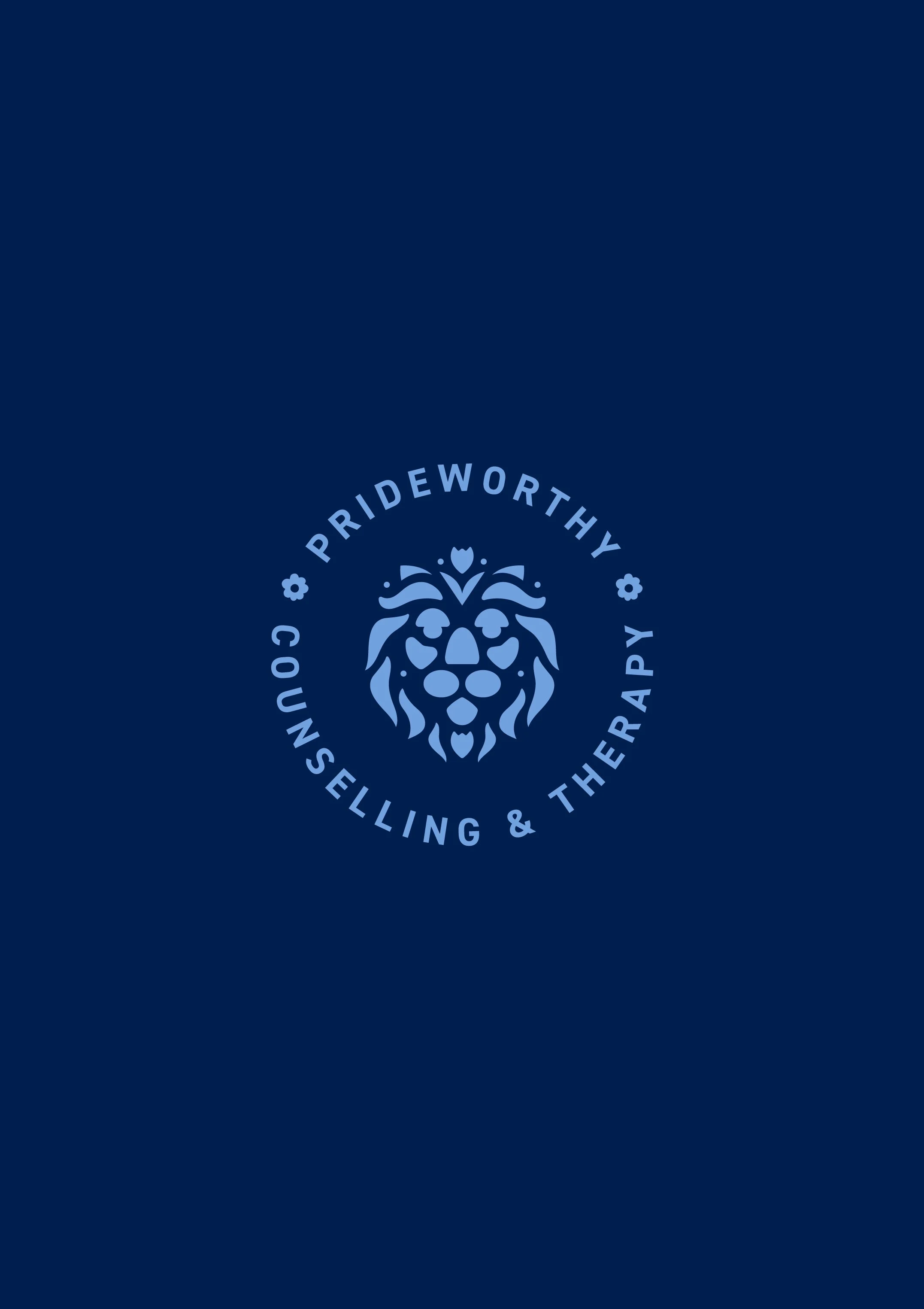
Prideworthy
Prideworthy is a people-centered therapeutic counseling service in Brunswick, AU with a focus on LGBTQIA+ individuals.
Being a member of this community really afforded me the opportunity to channel my love and gratitude for the community that has done the same for me.
I was tasked with designing a brand that represented the LGBTQIA+ community while not excluding anyone. Using negative space in the wordmark and mascot, I created a sense of openness and transparency.